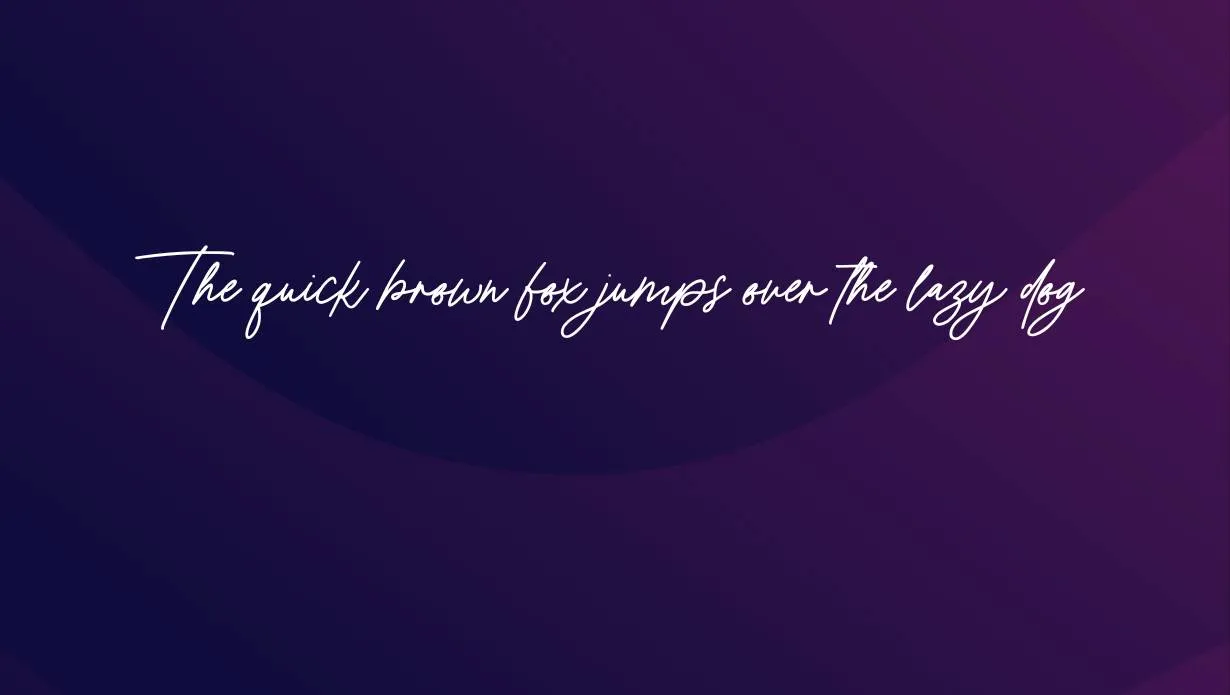
The Madeva Suarte font boasts a decorative and ornate style, making it ideal for projects requiring a touch of luxury and sophistication.
Often seen in high-end branding, invitations, or designs aiming for a lavish feel, this font is supported by TTF, OTF, and WOFF file formats, ensuring its accessibility across different design platforms.